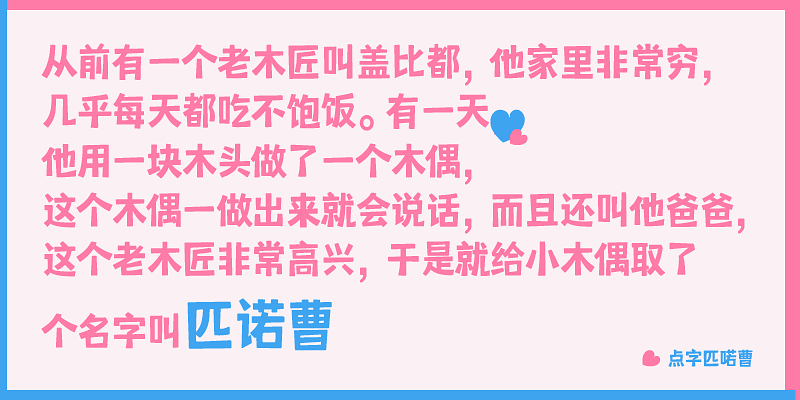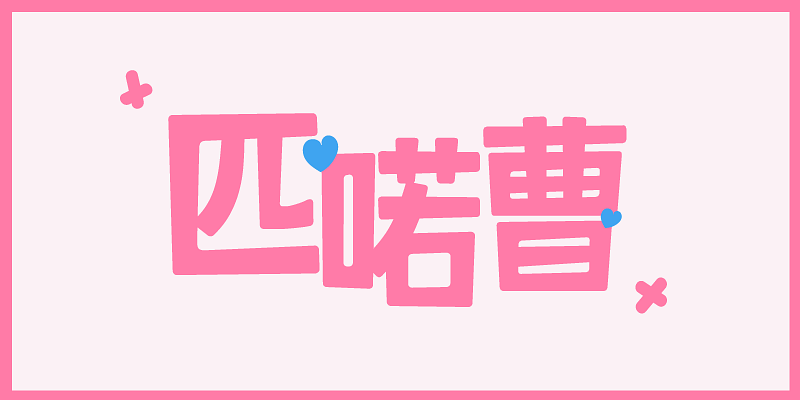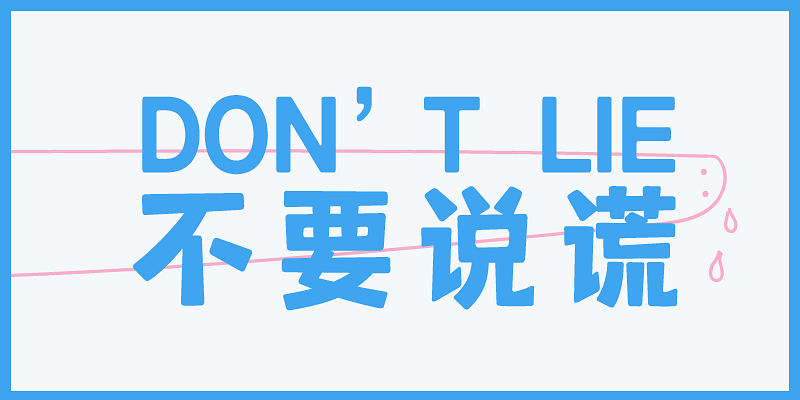
HelloFont ID Pinocchio is childlike, with strong personality and a strong sense of humor lovely breath. The vivid interludes of the strokes and changes of thickness of the shape give people a sense of vitality but stability. The round end of all strokes makes the font more personal, lively and interesting, and at the same time very approachable.